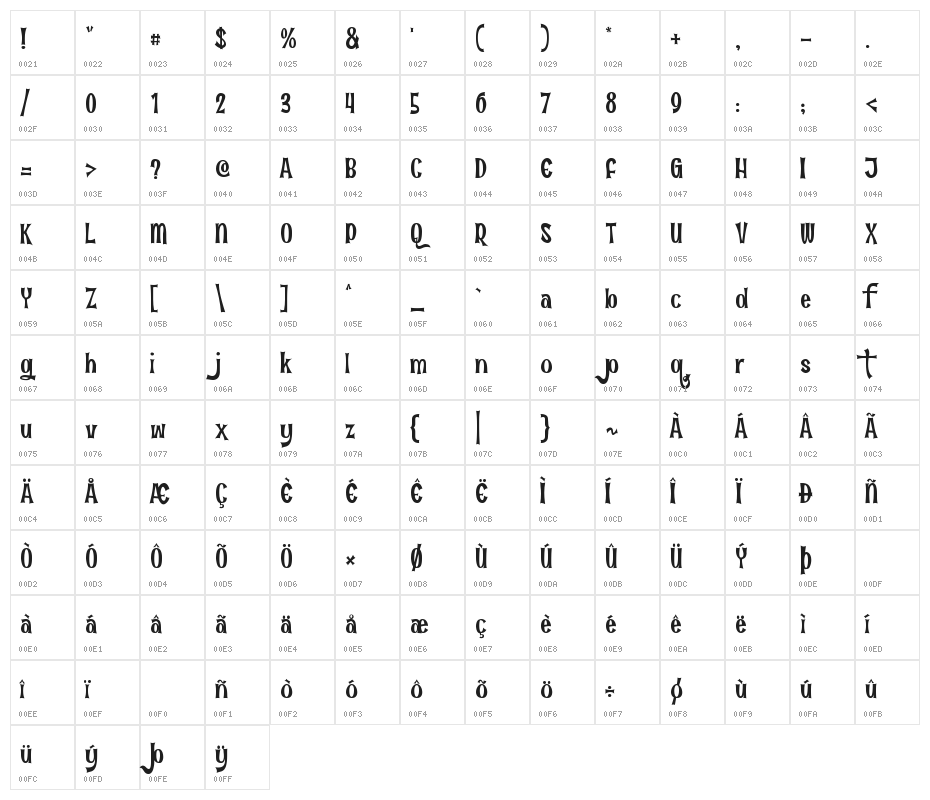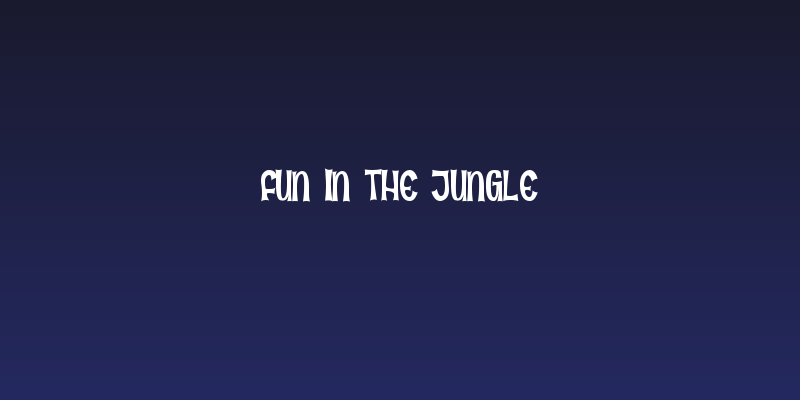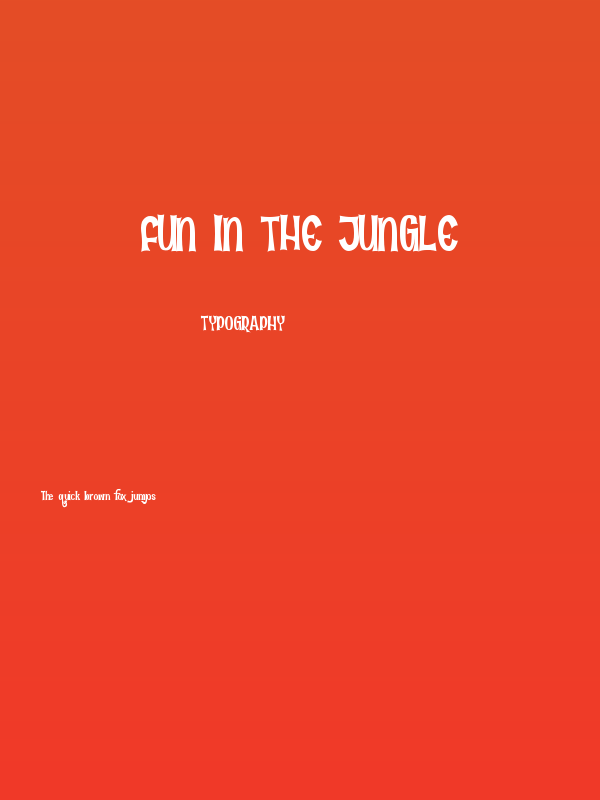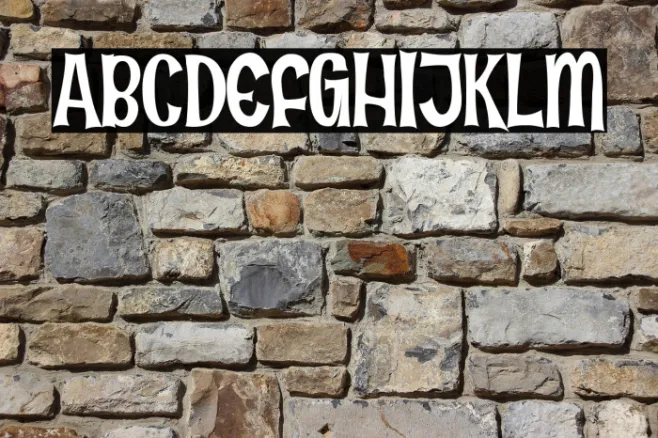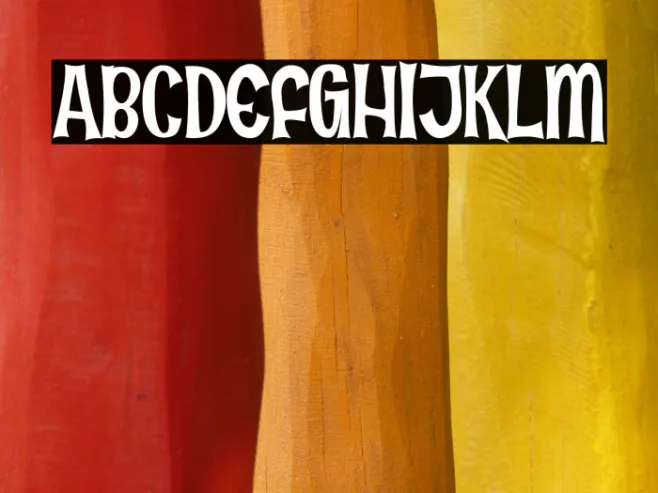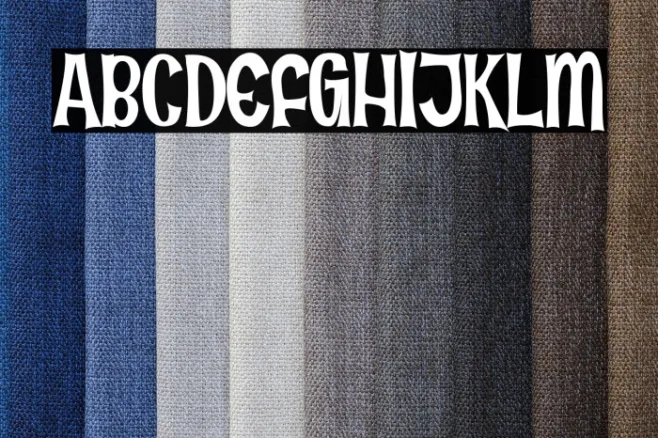
Fun in the Jungle Font
Fun in the Jungle Description
This font features a playful and whimsical design, characterized by its bold and exaggerated letterforms. The strokes are thick and uneven, giving it a lively and dynamic appearance. The uppercase letters have a strong presence with slightly curved edges, while the lowercase letters maintain a consistent style with a touch of flair. The numerals are bold and match the overall playful theme. Special characters are creatively designed, adding to the font's unique personality. This font is ideal for projects that require a fun and energetic vibe.
| Proposed Projects | Perfect for children's books, party invitations, playful branding, and creative posters. |